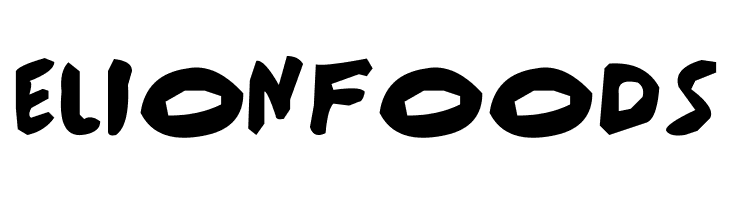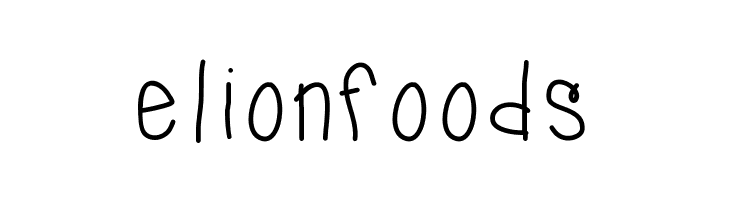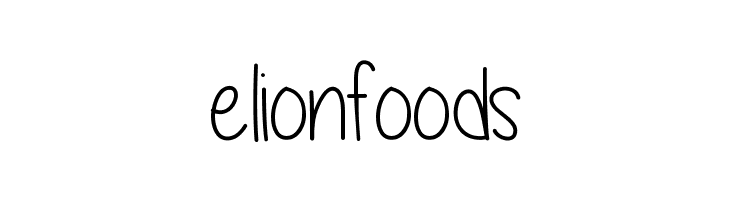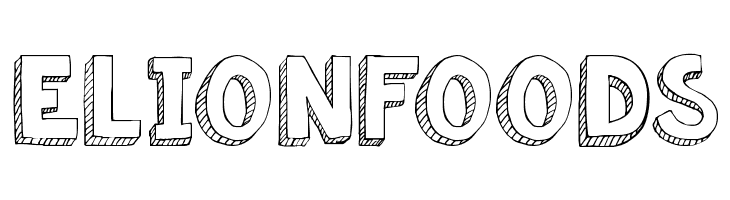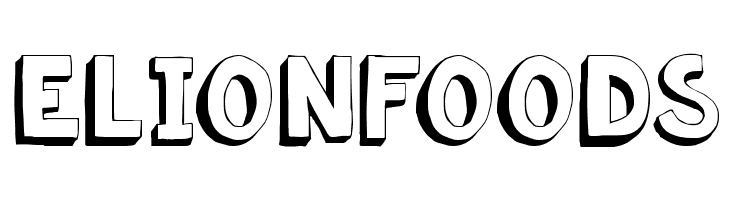
A graceful script font with elegant, flowing strokes and a handwritten style.
An elegant script font with high contrast and flowing, cursive style.
A bold, energetic brush script font with dynamic strokes.
A lively and dynamic script font with fluid, cursive letterforms.
A playful, hand-drawn font with bold, whimsical characters and decorative serifs.
A playful, casual handwritten font with smooth curves and a friendly vibe.
A playful, handwritten script font with smooth, connected strokes.
A modern, elegant script font with flowing cursive letters and dynamic strokes.
A playful, handwritten font with bold, flowing letters and a whimsical style.
A bold, Gothic-inspired font with intricate, angular details.
A playful, bold, and rounded font with a whimsical design.
A classic serif font with elegant strokes and pronounced serifs.
An elegant and flowing script font with ornate, decorative letterforms.
A playful, bold font with rounded, whimsical letterforms.
A bold, retro-style font with diagonal hatching and a playful, dynamic appearance.
A playful, bold script font with interconnected, flowing strokes.
A playful, glossy, and bold font with a bubbly, three-dimensional appearance.
A bold, flowing script font with a modern and energetic style.
A modern, ultra-thin, and elongated font with a minimalist design.
A playful, bold font with thick outlines and a cartoon-like style.
A decorative and bold font with intricate patterns and high contrast.
A playful, hand-drawn script font with bold, rounded letters.
A bold, Gothic-inspired font with sharp, angular lines and ornate detailing.
A playful, bold, and bubbly hand-drawn font with rounded strokes and a whimsical style.
A playful, handwritten-style font with bold, rounded characters.
A playful, bubbly font with decorative drips and rounded characters.
A bold, playful font with rounded, thick strokes and a bubbly appearance.
A playful, bold, and italicized font with star-themed decorative elements.
A playful, hand-drawn font with bold, rounded characters and star motifs.
A playful, bold font with a bubbly, rounded design perfect for fun and whimsical projects.
A playful, hand-drawn font with bold, rounded characters and a whimsical style.
A playful, bold font with rounded, bubbly characters perfect for informal designs.
A bold, playful font with a bubbly, glossy appearance.
An elegant, cursive handwritten font with flowing, connected letters.
A flowing, cursive script font with a natural handwritten style.